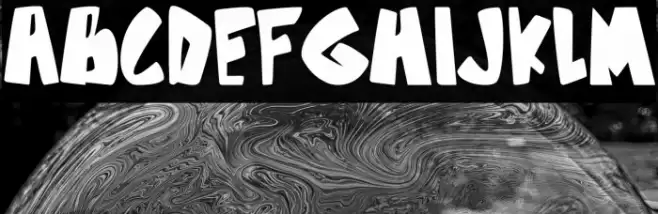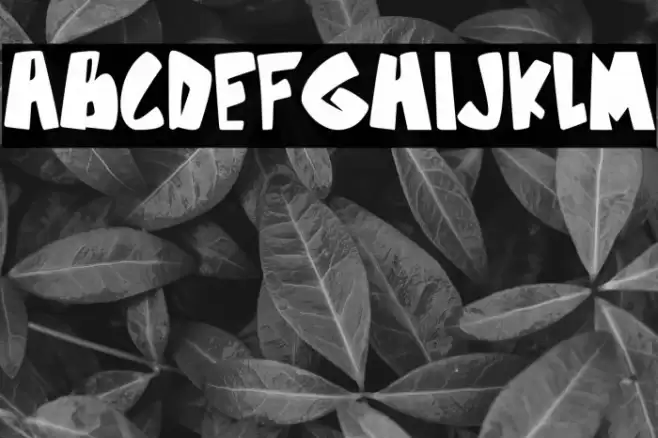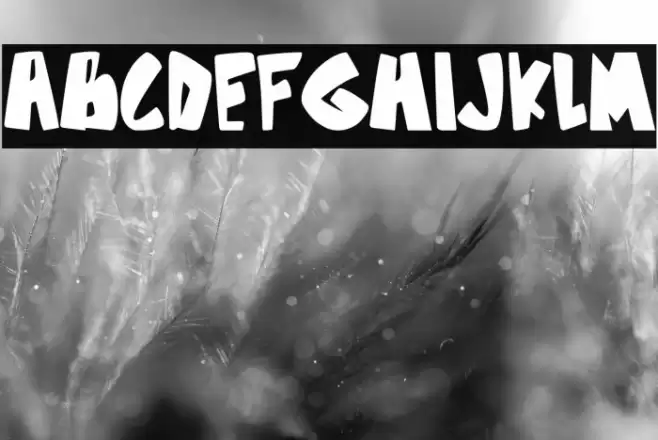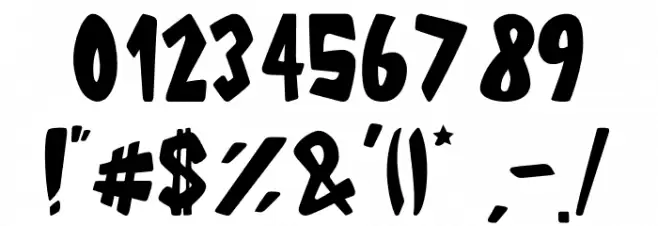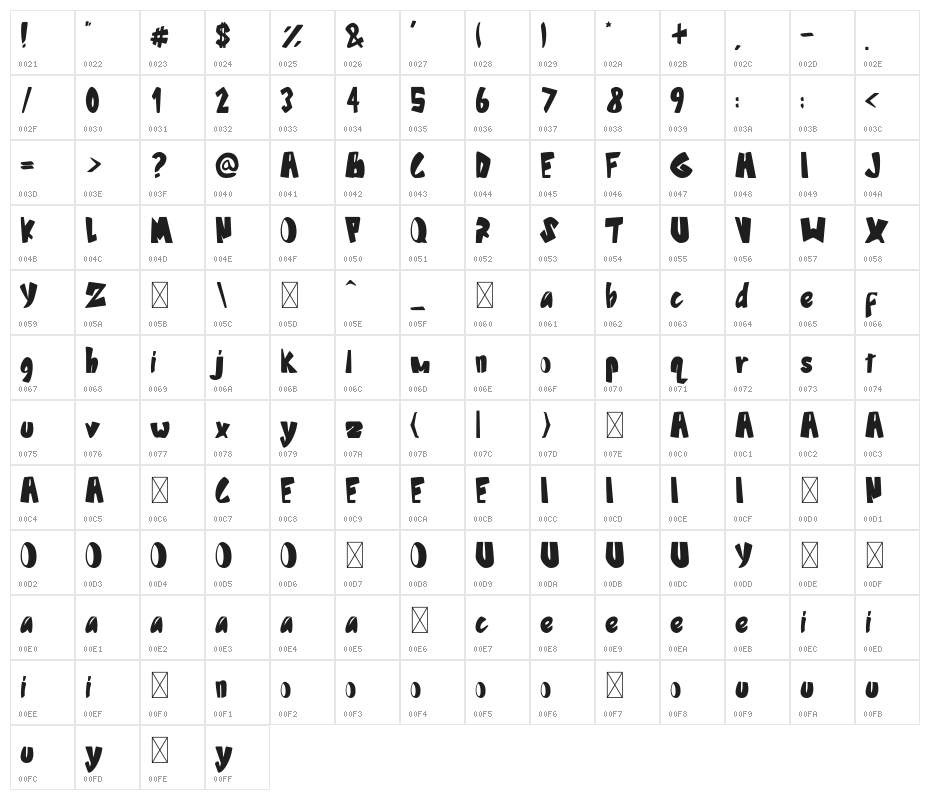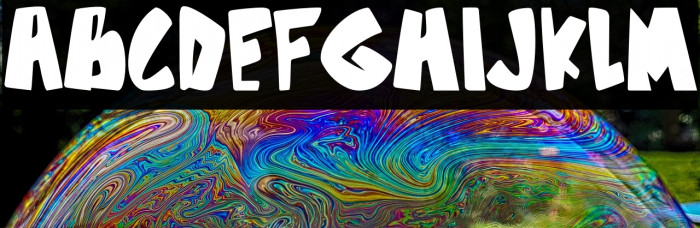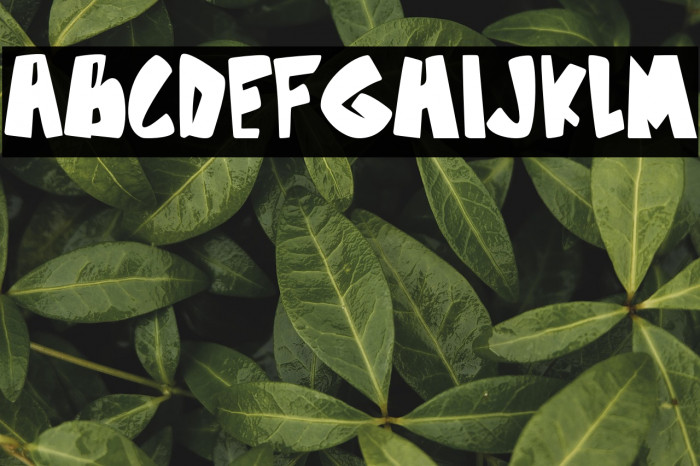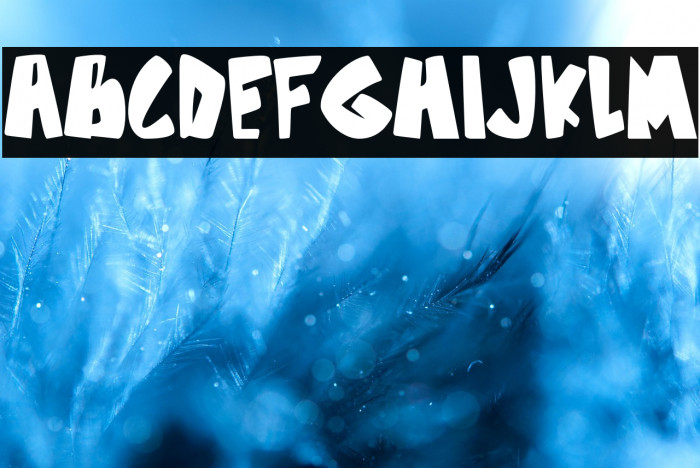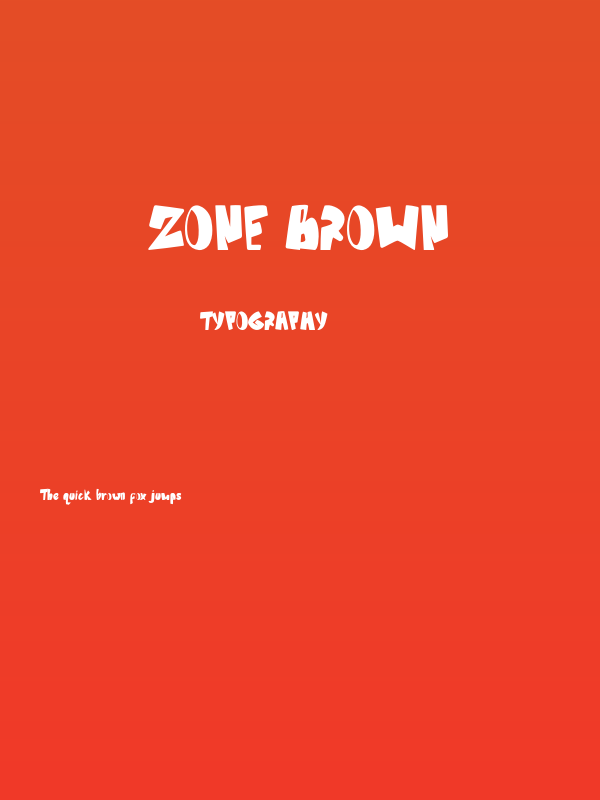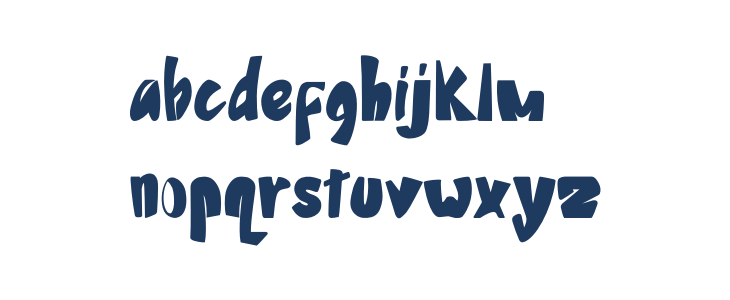
Zone Brown Font
Zone Brown Description
This font features a bold and playful design with exaggerated, irregular shapes that give it a whimsical and dynamic appearance. The characters are thick and chunky, with a hand-drawn feel that adds a sense of fun and creativity. The uppercase and lowercase letters maintain a consistent style, with unique curves and angles that make each letter stand out. The numbers and special characters follow the same playful theme, ensuring a cohesive look across all text. This font is perfect for projects that require a lively and eye-catching typeface.
A bold, playful font with irregular, hand-drawn shapes from Uncategorized fonts.
- Font: Zone Brown
- Proposed Projects: Ideal for children's books, playful branding, event posters, and creative social media graphics.
- Overall Style: Playful, Whimsical